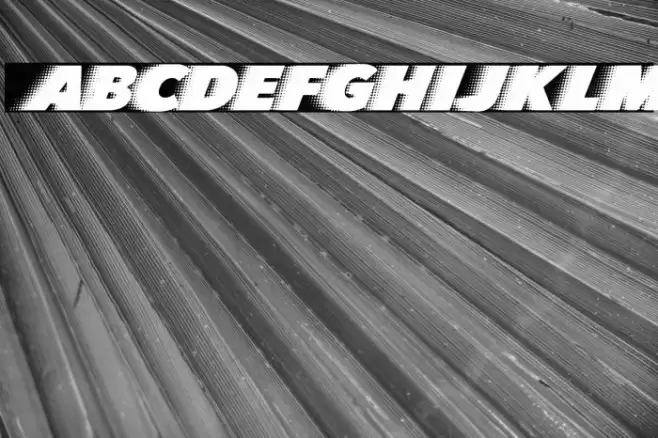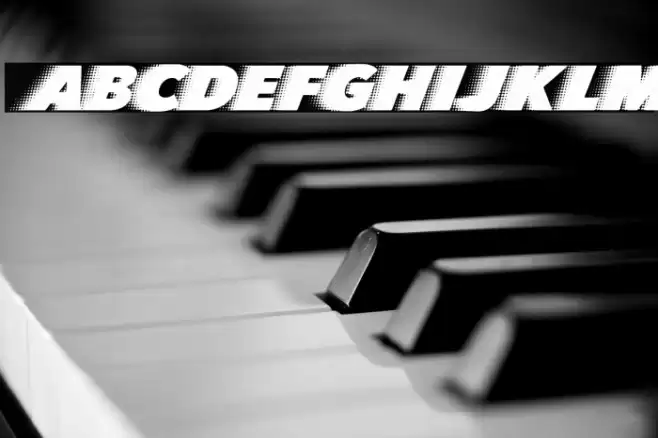
QUICKSILVER CLEAN FAST Font
QUICKSILVER CLEAN FAST Description
This font features a bold and dynamic style with a distinct halftone pattern that gives it a sense of motion and energy. The uppercase letters are designed with a forward-leaning italic slant, enhancing the impression of speed and movement. The characters are bold with a strong presence, making them ideal for attention-grabbing headlines or logos. The halftone effect adds a unique texture, reminiscent of comic book art or retro designs, which can evoke a sense of nostalgia while remaining modern and impactful.
A bold, italic font with a halftone pattern, exuding speed and energy from Uncategorized fonts.
- Font: QUICKSILVER CLEAN FAST
- Proposed Projects: Ideal for use in dynamic branding, sports team logos, comic book titles, or any project requiring a sense of speed and excitement.